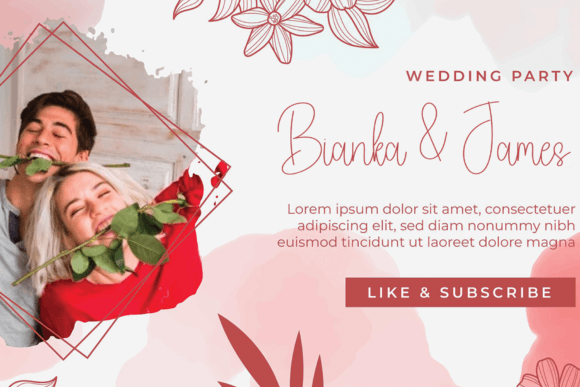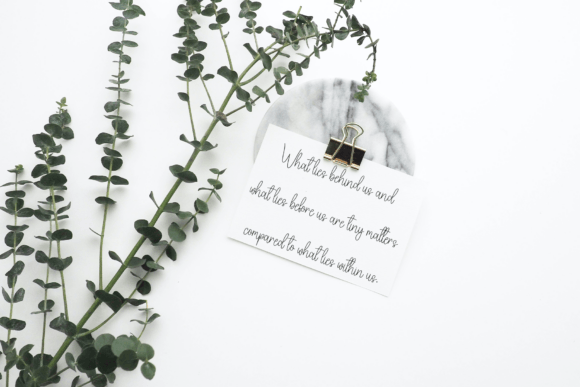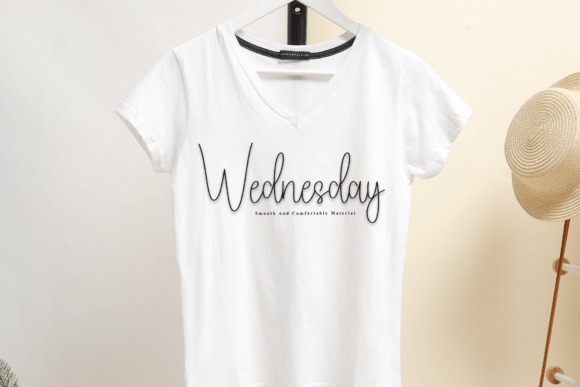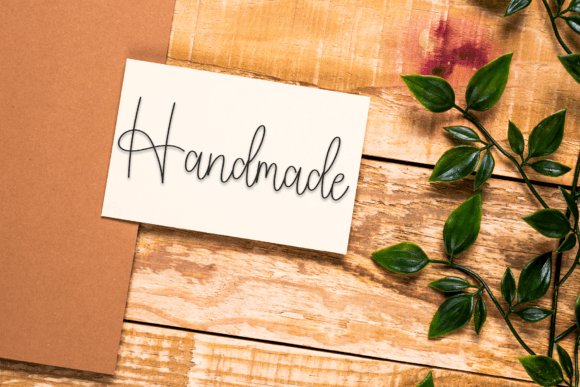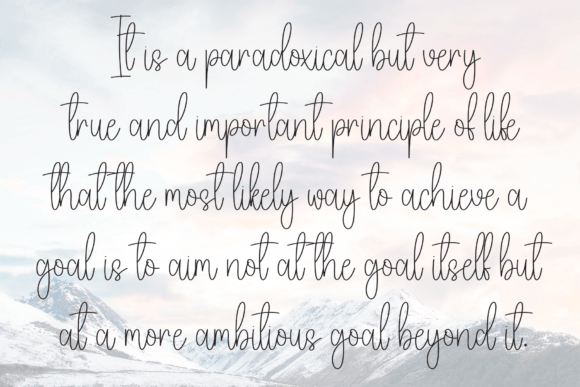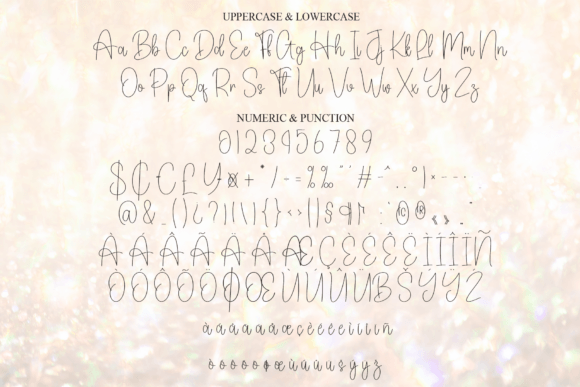
Glistening Font: Elevate Your Designs with Elegant, Flowing Handwriting
Are you looking for a font that adds a touch of sophistication and glamour to your designs? Look no further than Glistening, a beautiful script font that mimics elegant, flowing handwriting. With its smooth, curvy letters and shining style, Glistening is perfect for designers and crafters who want to create stunning invitations, logos, cards, and more.
What is Glistening Font?
Glistening is a script font that boasts a luxurious, hand-written feel. Its fluid strokes and connected letters evoke a sense of elegance and refinement, making it ideal for projects that require a high level of sophistication. Whether you’re designing wedding invitations, creating a logo for a high-end brand, or crafting beautiful greeting cards, Glistening is the perfect choice.
Key Features of Glistening Font
- Elegant, flowing handwriting: Glistening’s script font features smooth, curvy letters that flow seamlessly into one another, creating a beautiful, hand-written effect.
- Smooth, connected letters: The font’s connected letters ensure that words and phrases flow smoothly, creating a cohesive and polished look.
- Shining style: Glistening’s font shines with style, thanks to its subtle sparkle and shine effects that add depth and dimension to your designs.
- Perfect for invitations and more: Glistening is ideal for designing invitations, logos, cards, and other projects that require a touch of elegance and sophistication.
Why Choose Glistening Font?
There are many reasons why designers and crafters choose Glistening font for their projects. Here are just a few:
- Adds a touch of elegance: Glistening’s elegant, flowing handwriting adds a touch of sophistication to any design, making it perfect for high-end projects.
- Versatile: Glistening is a versatile font that can be used for a wide range of projects, from invitations and logos to cards and more.
- Unique and eye-catching: Glistening’s shining style and smooth, curvy letters make it a unique and eye-catching font that will set your designs apart from the rest.
- Experiment with different sizes and styles: Glistening font looks great in a variety of sizes and styles, so don’t be afraid to experiment and find the perfect look for your project.
- Pair with complementary fonts: Glistening font looks great when paired with complementary fonts, such as serif or sans-serif fonts.
- Use for headlines and titles: Glistening font is perfect for headlines and titles, where its elegant, flowing handwriting can really shine.
- Add a personal touch: Glistening font is a great way to add a personal touch to your designs, thanks to its hand-written feel and shining style.
In conclusion, Glistening font is a beautiful script font that adds a touch of elegance and sophistication to any design. With its smooth, curvy letters and shining style, Glistening is perfect for designers and crafters who want to create stunning invitations, logos, cards, and more. Whether you’re looking for a font that’s elegant, versatile, and easy to use, Glistening is the perfect choice.